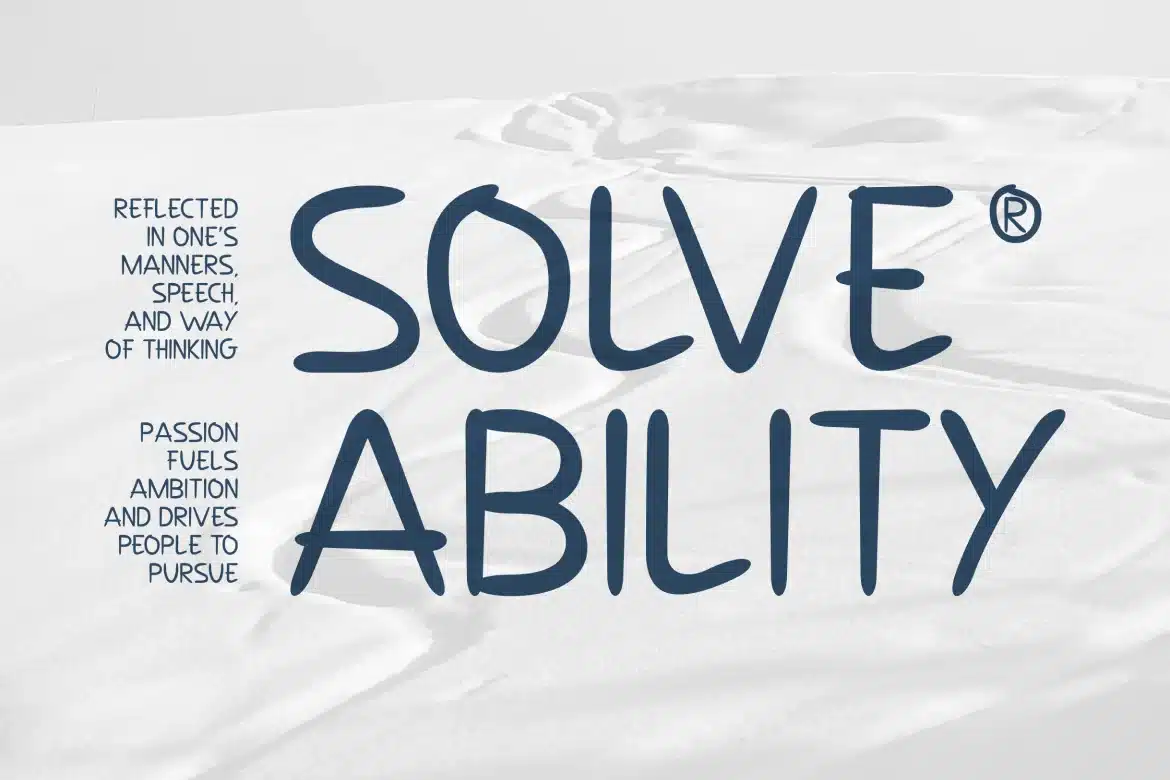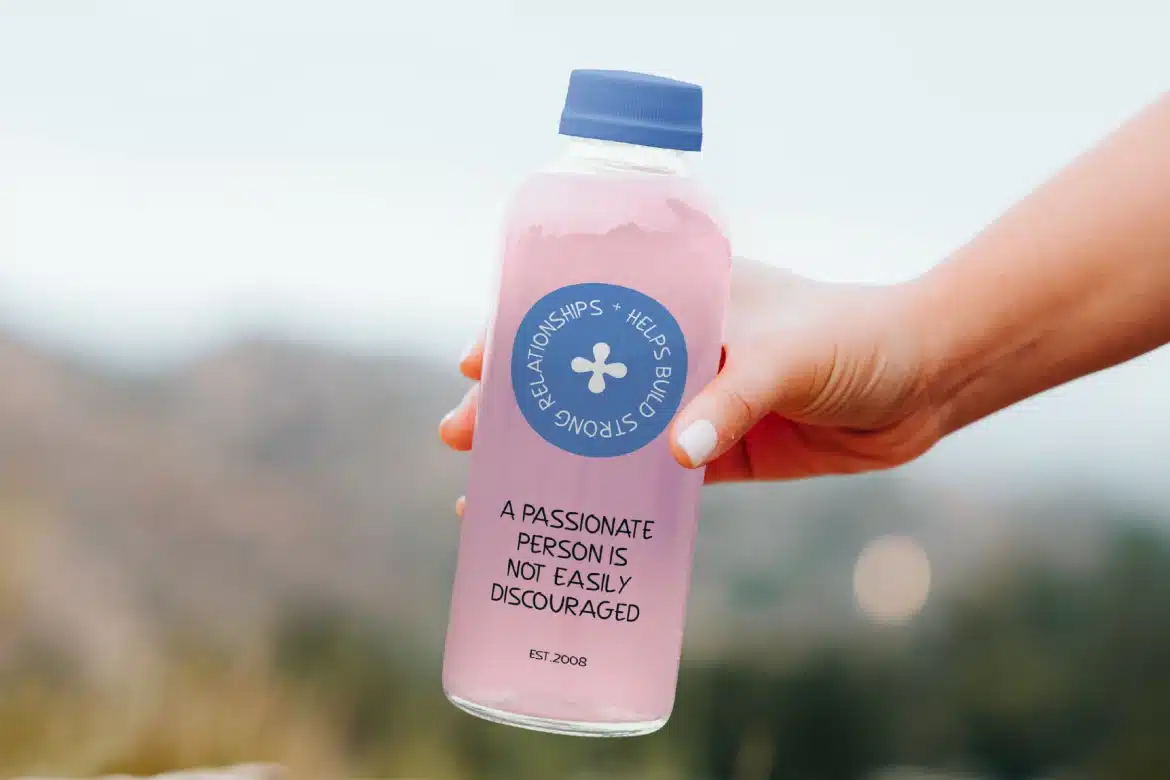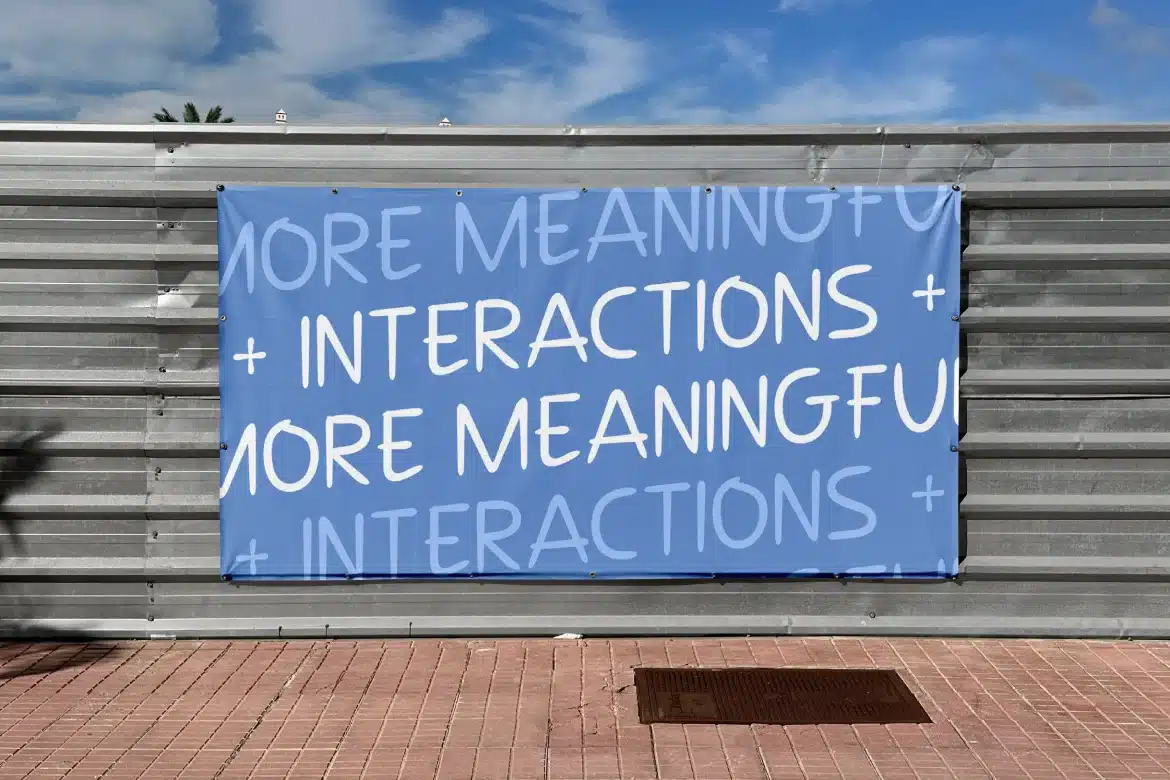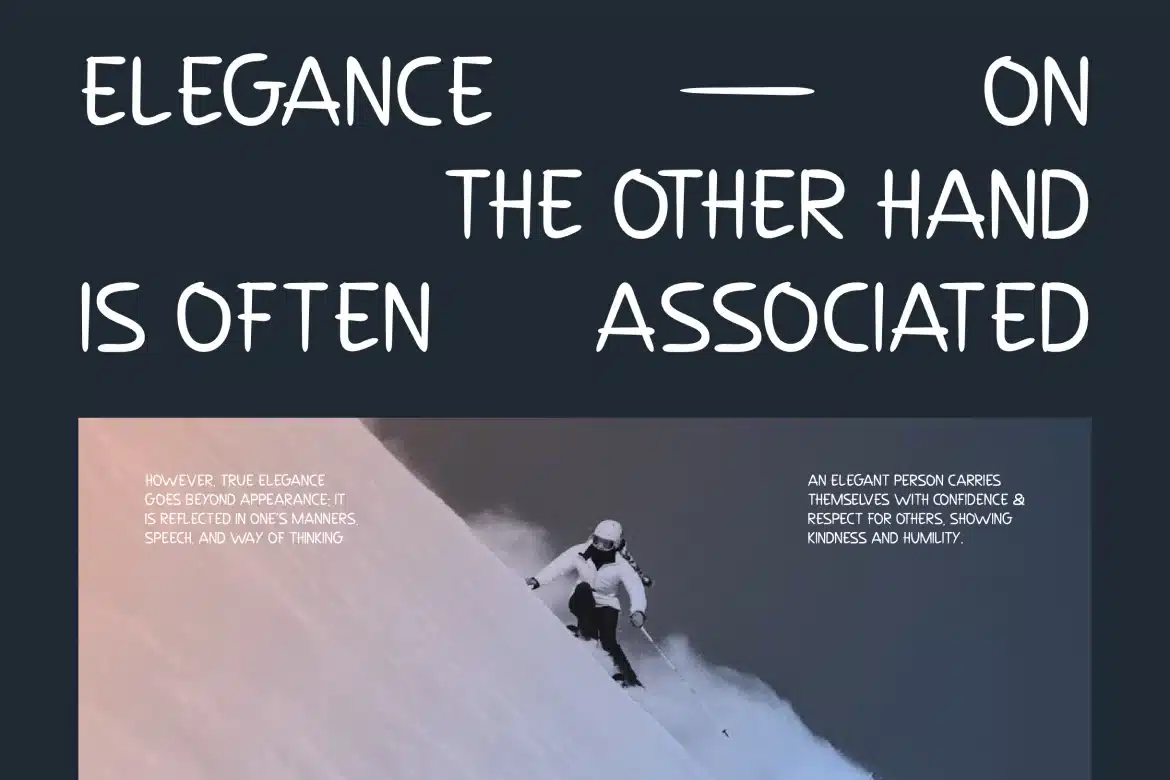
Harbinger Creative Rounded Font
Harbinger Creative Rounded Font is a clean and modern sans serif display font that captures both simplicity and character. With its balanced letterforms and minimalist construction, Harbinger is perfect for contemporary branding, editorial headlines, packaging, and digital projects. Versatile choice for various professional and creative uses. Its slightly rounded corners add a touch of warmth, making it ideal for brands that want to appear approachable yet confident.
Relevance and Use Cases Harbinger is perfect for logo design, product packaging, editorial design, social media graphics, website headers, advertising, clean design, modern layout, minimalist poster, corporate identity, marketing materials, digital ads, wellness products, skincare packaging, lifestyle content, UI/UX design, creative portfolios, promotional banners, signage design, product labels, business cards
Main Features
- Uppercase & Lowercase characters
- Numeral & Punctuations